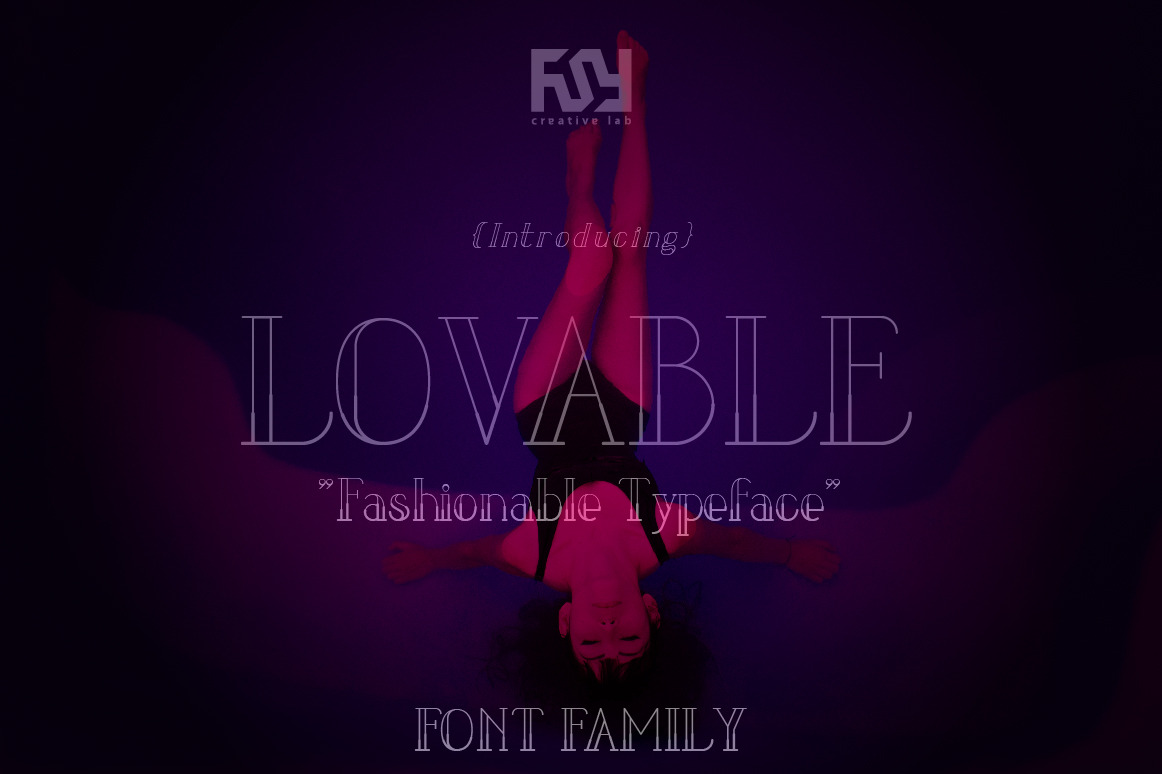
LOVABLE FONT FAMILY
This font was inspired by a sewing needle, when I'm no ideas to create a font, and already bored with the type of brush that many in the market,I tried to find another idea, and the idea came as I saw there was a sewing machine front of me, then I see the part by part, and I was interested in the shape of sewing machine needles. And this is the result, I hope you like. This font is suitable for fashion, boutiques, salons, wedding, ecommerce web hero image, fashion blogging etc.